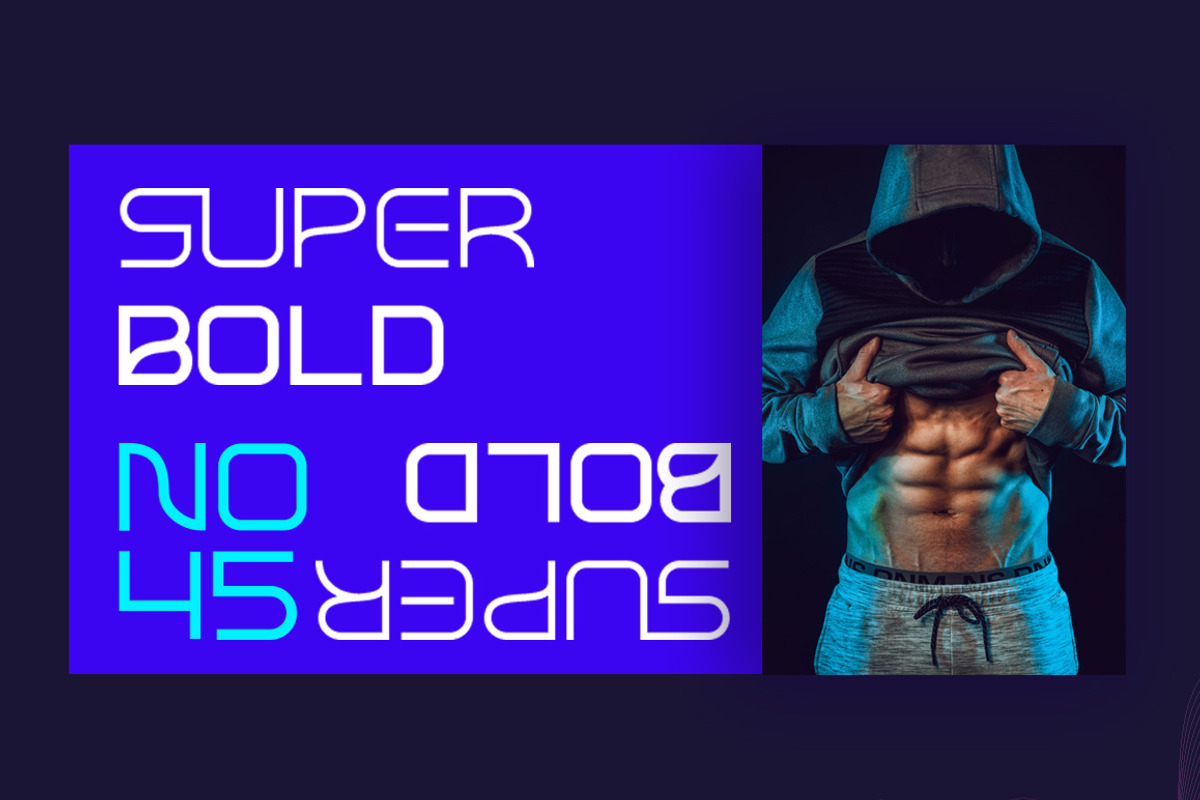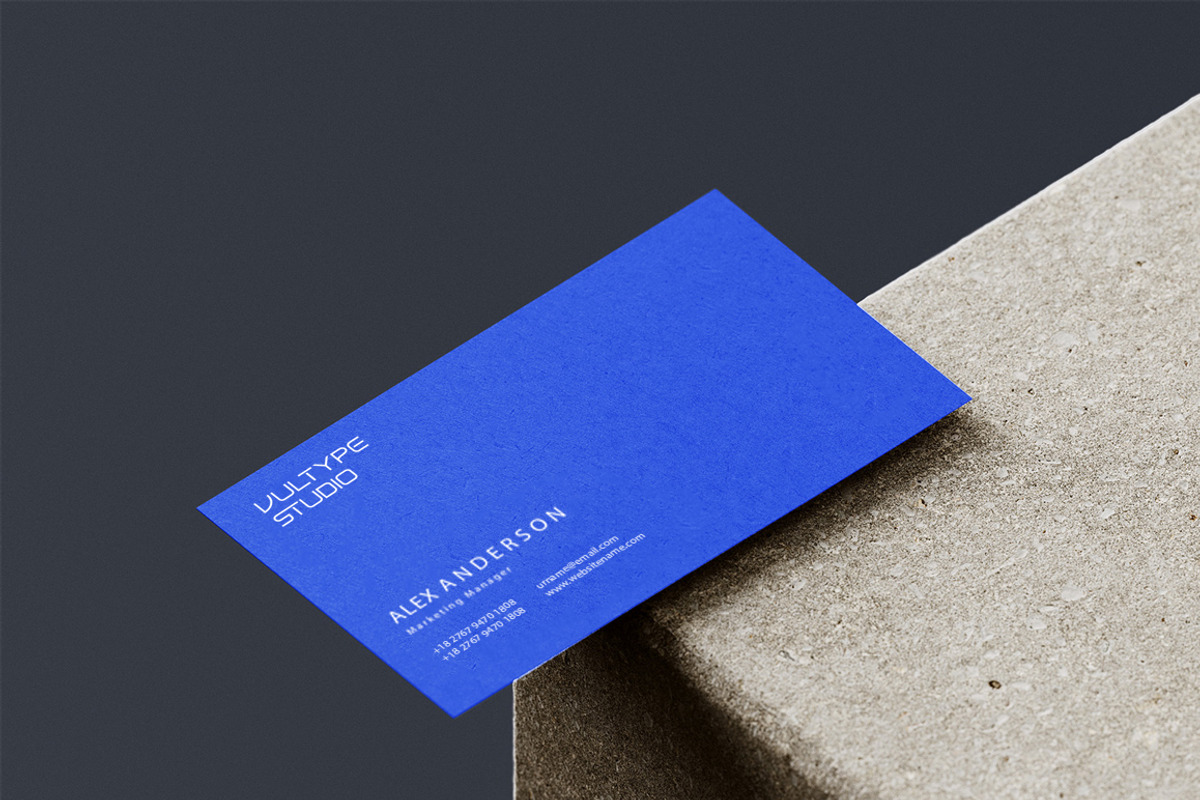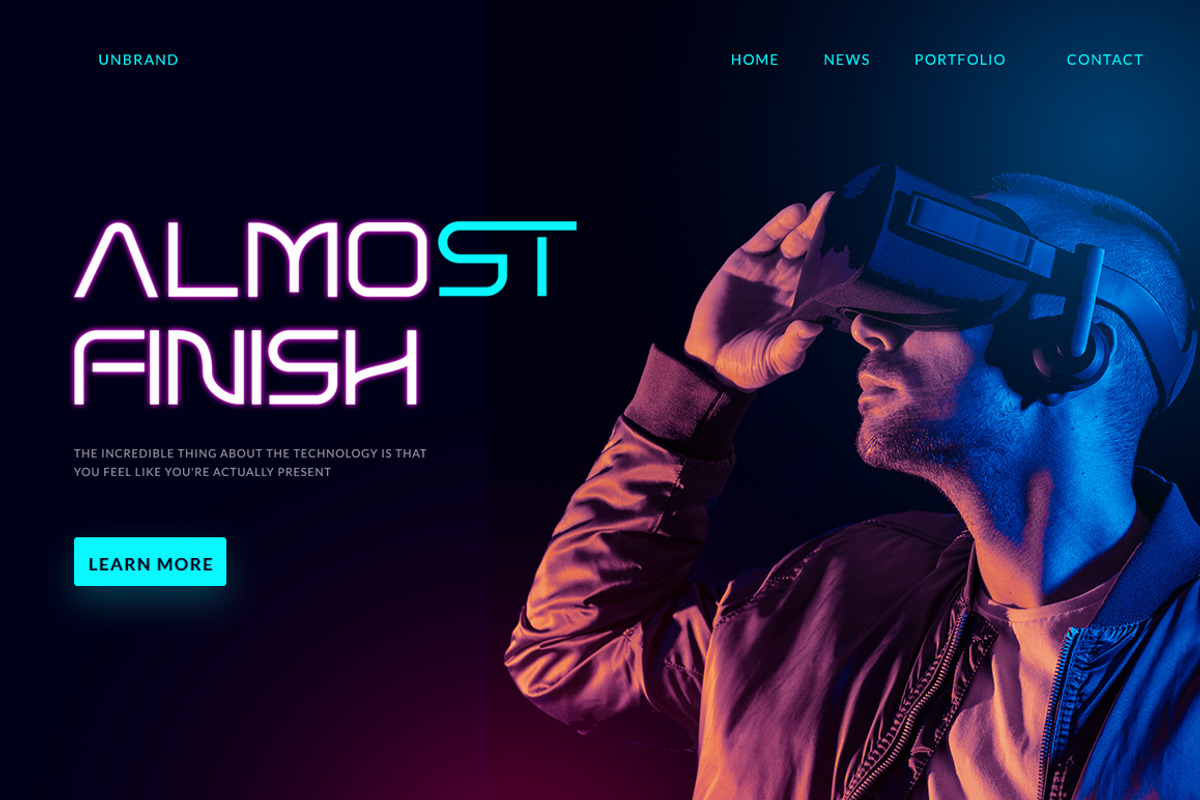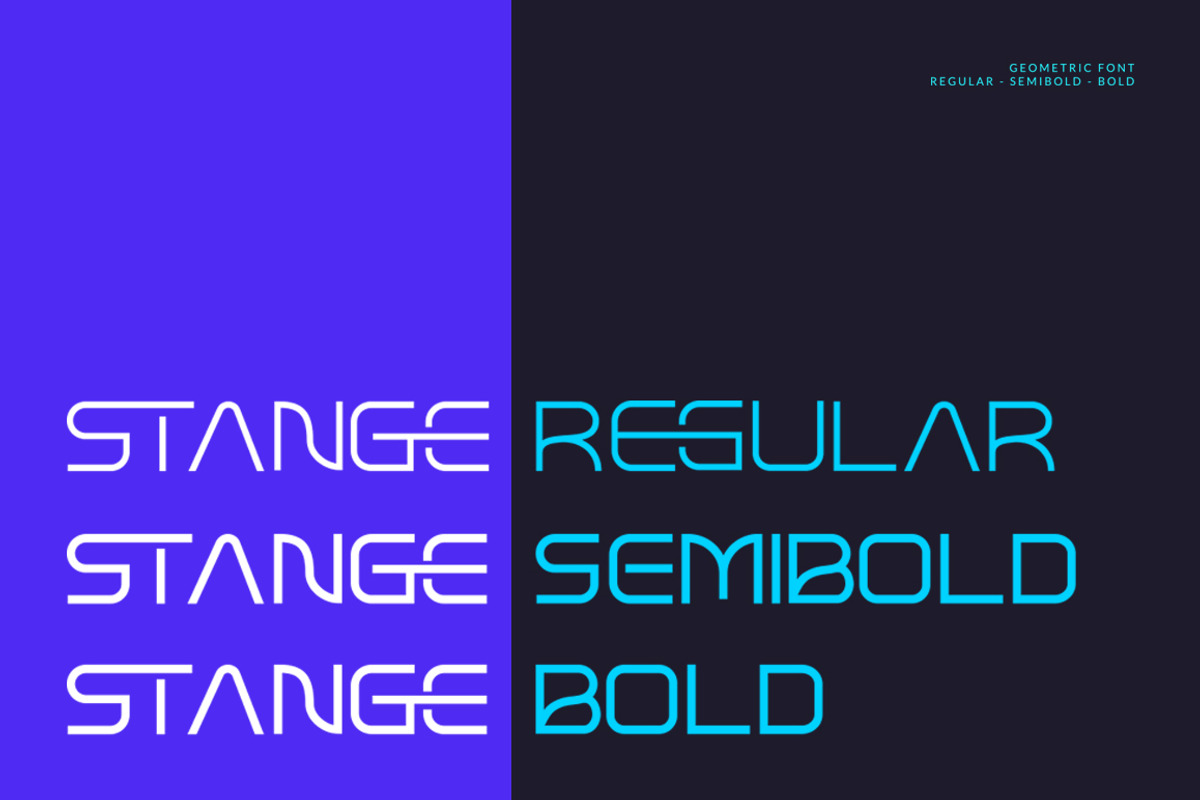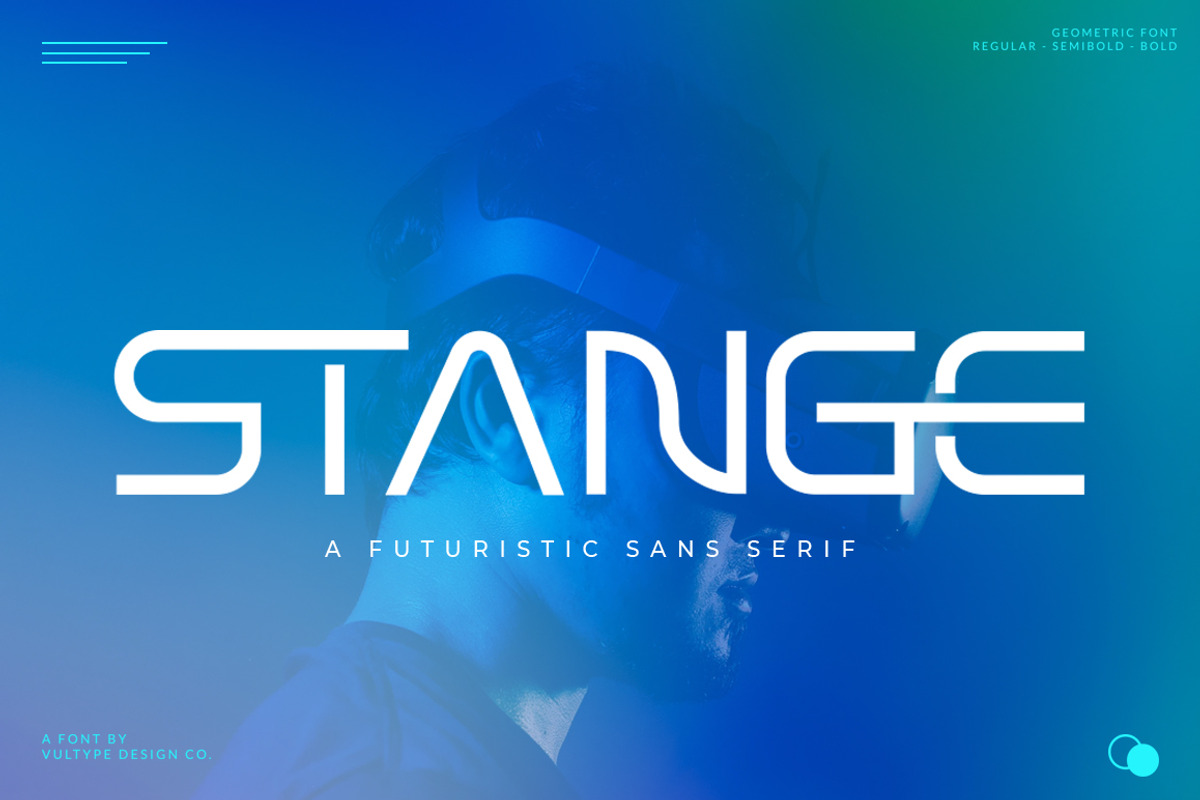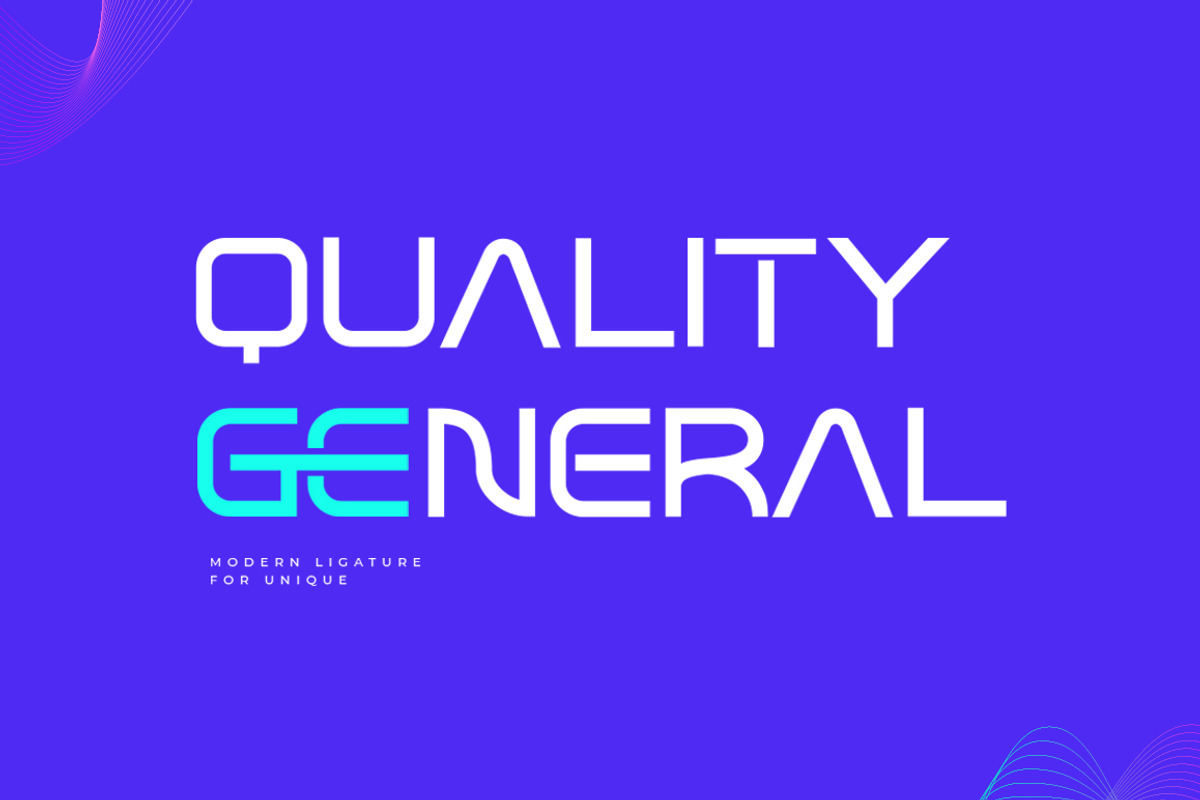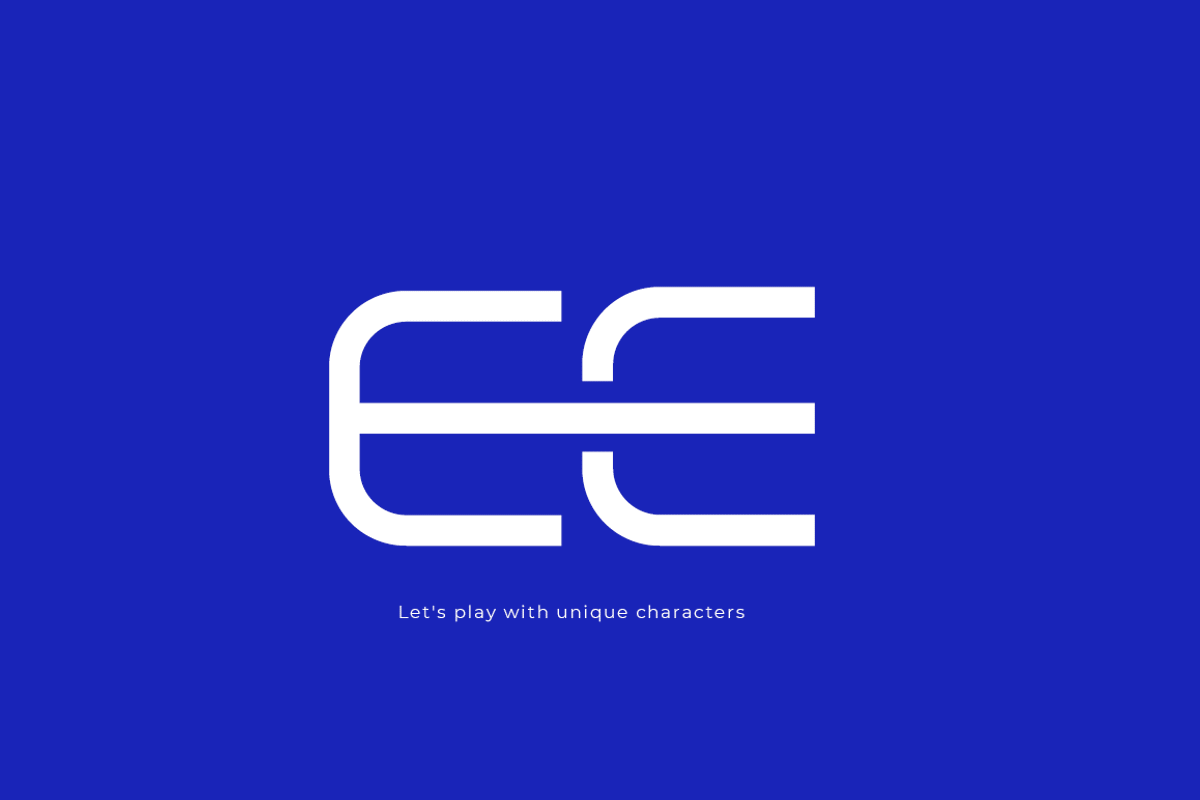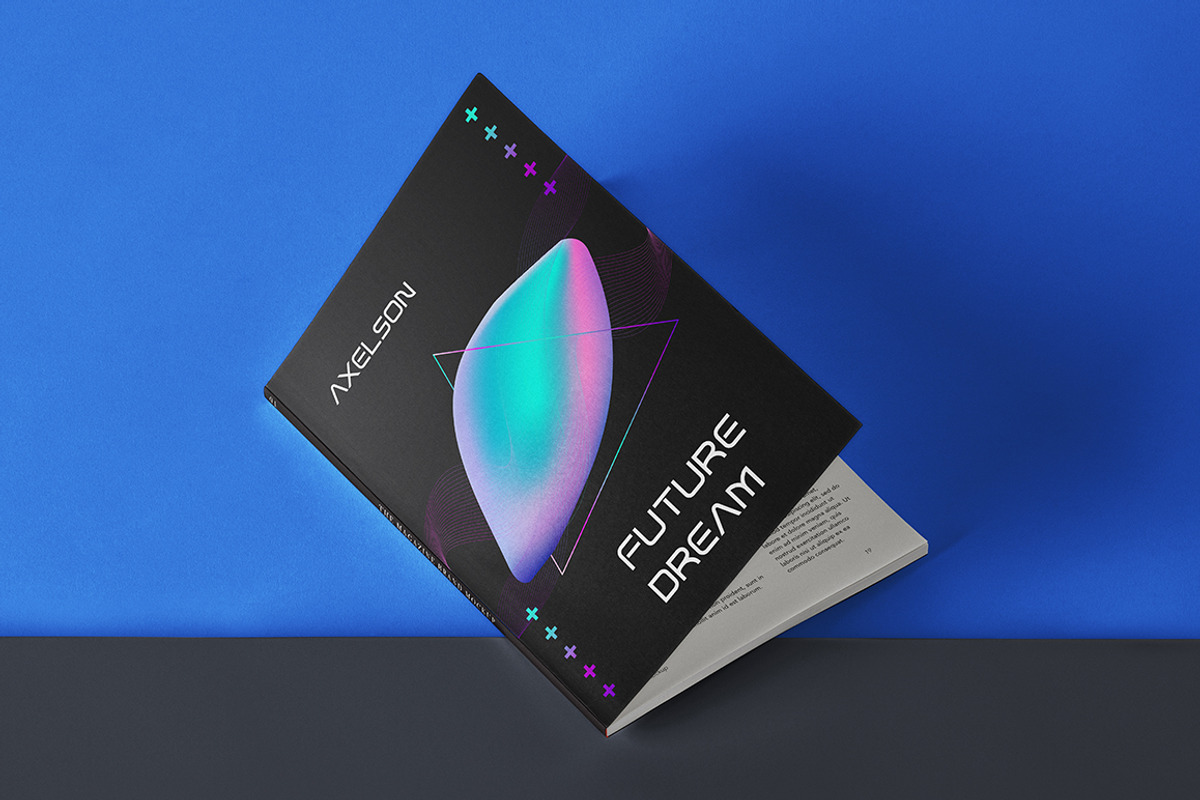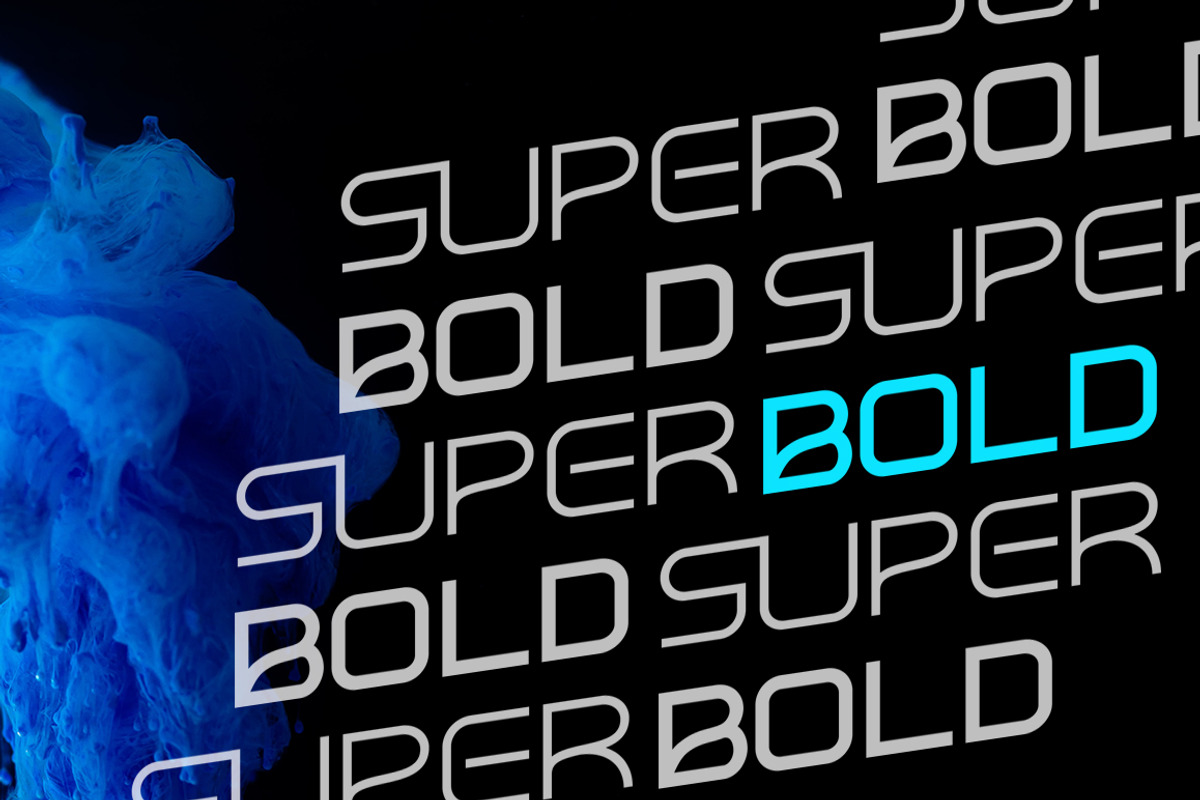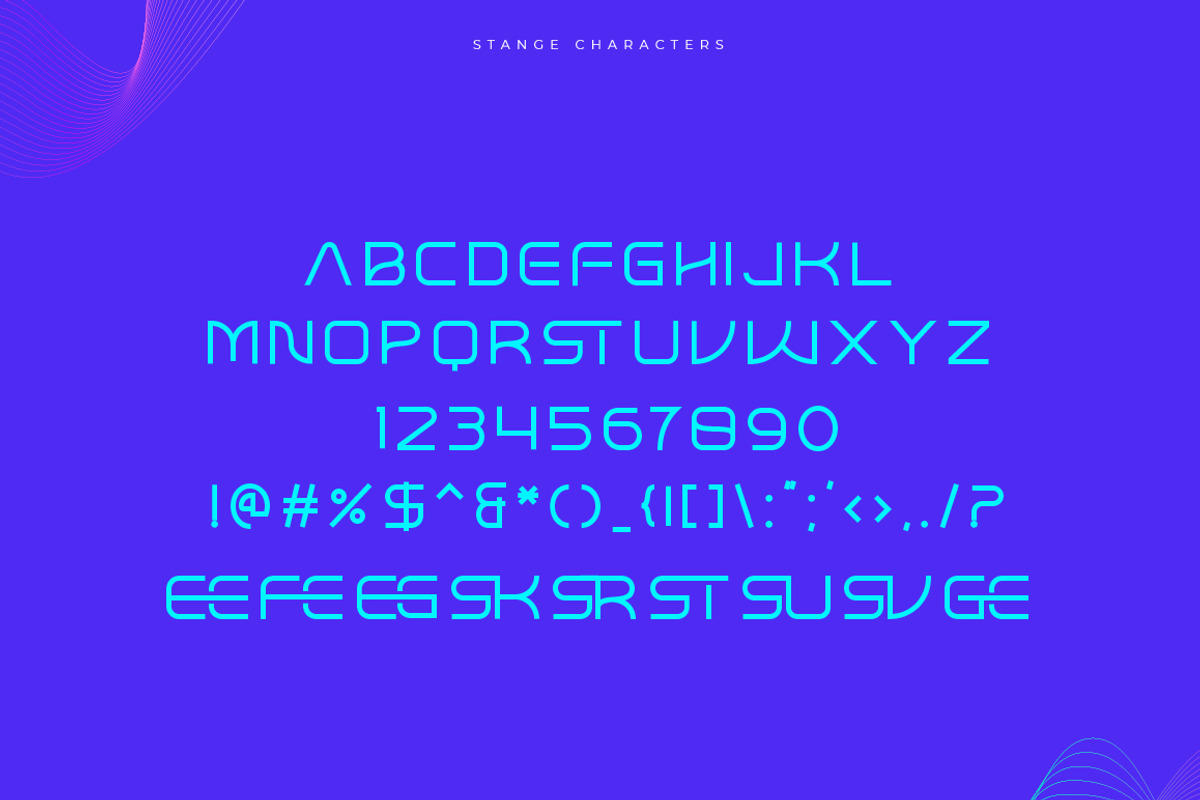
Stange - Futuristic Modern Font
Stange is a font with a futuristic edge, geometric corners, perfect for technology theme. As with its Stange, Stange makes a strong impression in print, headlines, video, and social media – whether paired with a contrasting typeface or on its own.
- 3 Weight - (Regular / SemiBold / Bold)
- OpenType features
- Including alternates and ligatures